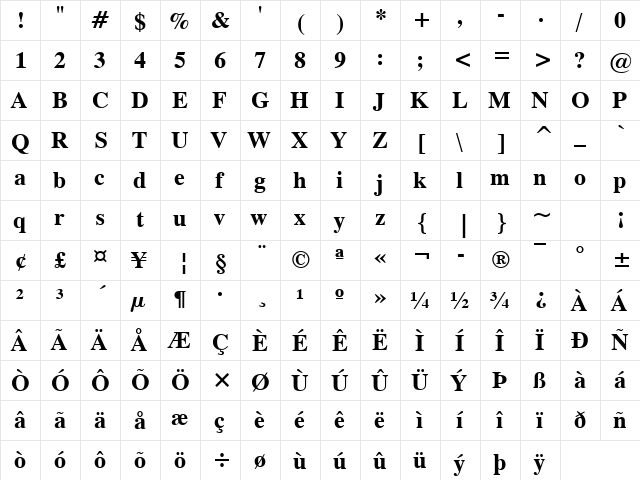
Dutch801 Rm Win95BT Bold
Design Context for Dutch801 Rm Win95BT Typeface
Dutch801 Rm Win95BT is a composed and adaptable typeface that performs quietly and consistently across a wide range of design contexts. The heavy weight commands attention and anchors typographic hierarchies.